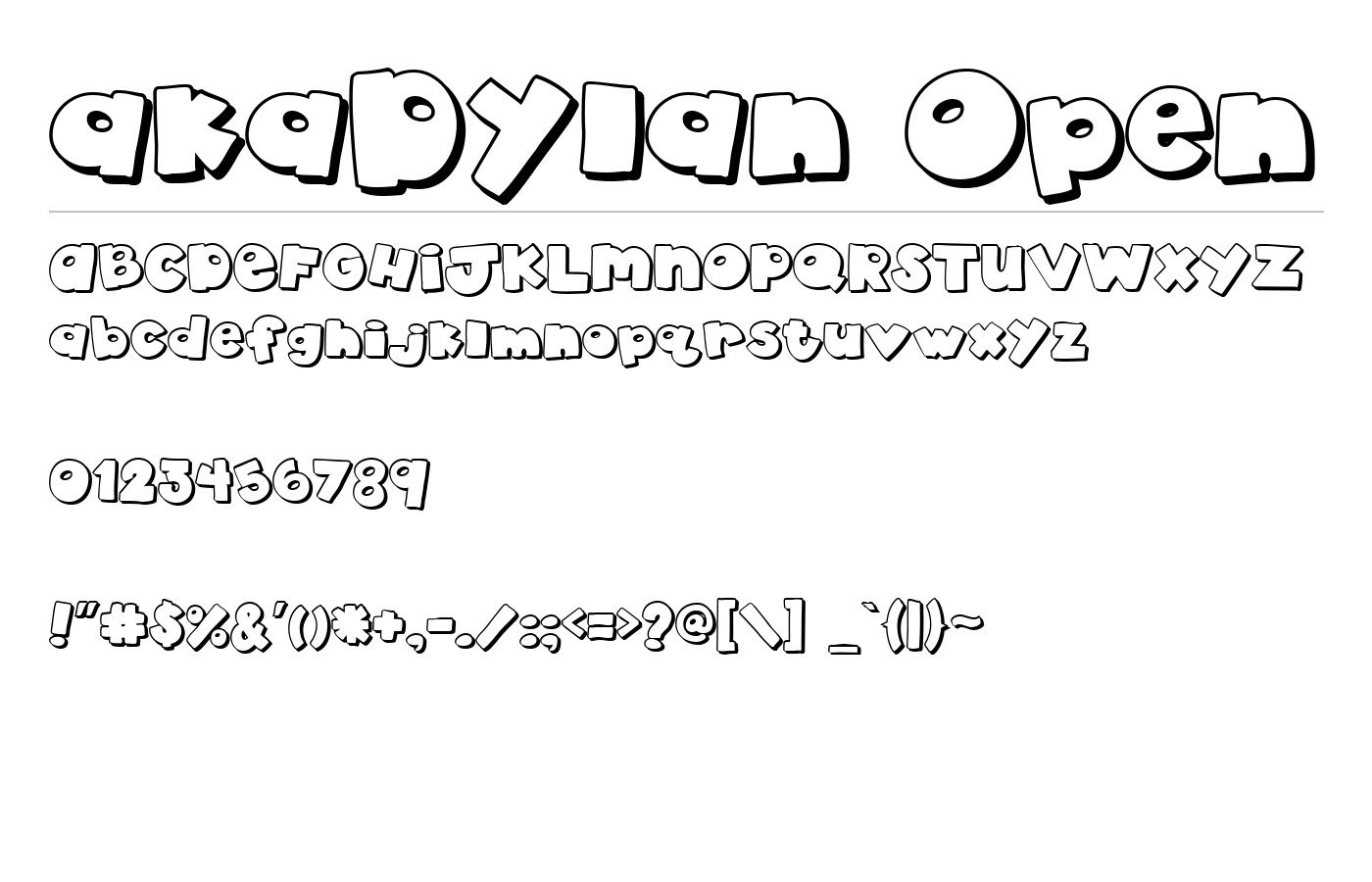
akaDylan Open is a playful, bold sans serif font with a chunky, hand-drawn style that feels fun and approachable. Its irregular shapes and thick outlines give it a whimsical, cartoon-like personality, making it perfect for children’s books, casual branding, and creative projects that want to convey friendliness and energy. This font works well in headlines and logos where a lively, informal tone is desired.
akaDylan Open Font
About akaDylan Open Font
| Font family | akaDylan Open Font |
| Designer | James Daniel Milligan |